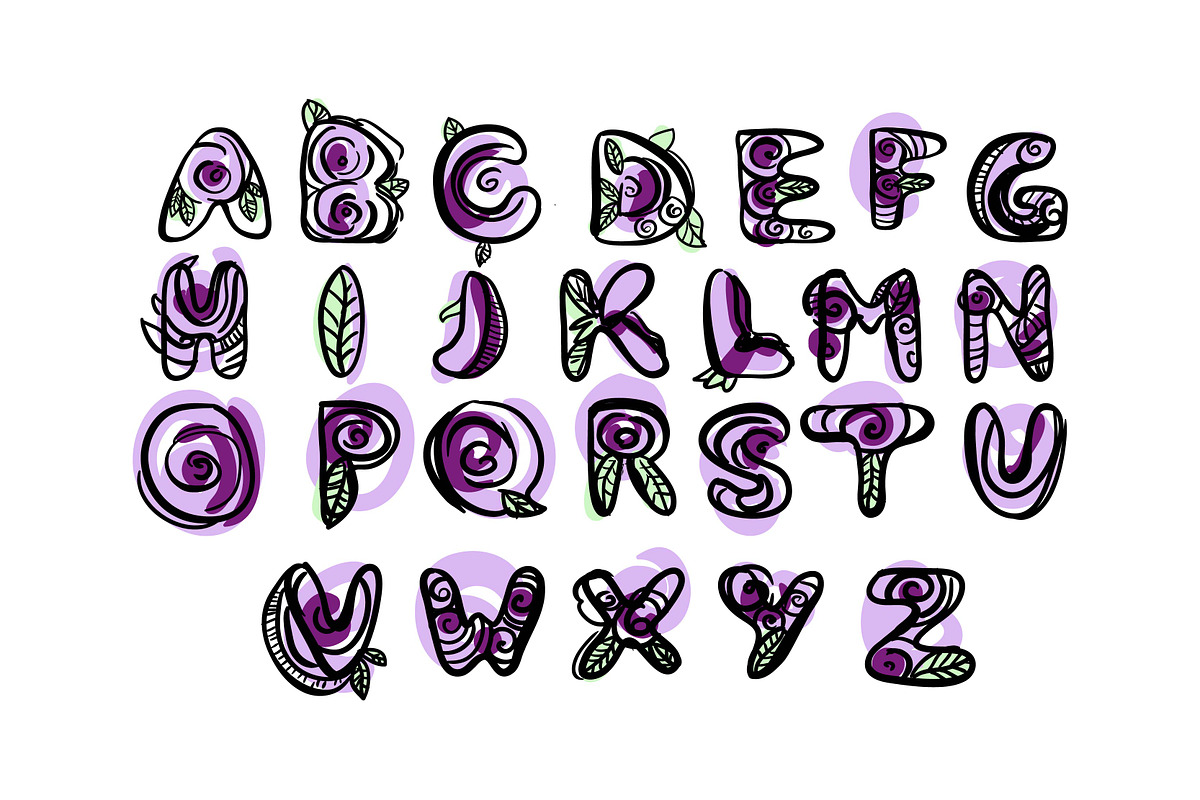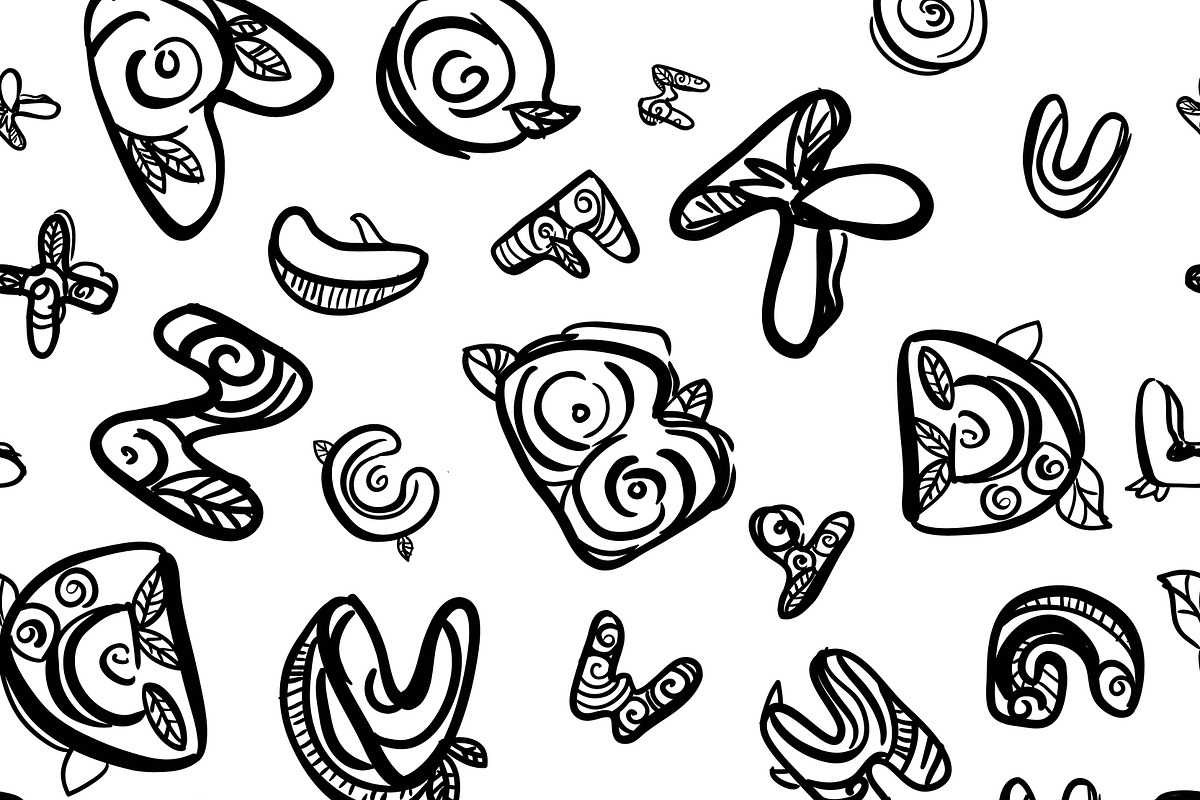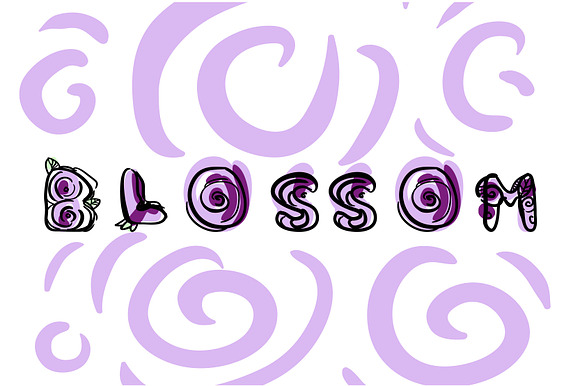
Blossom font
Blossom Font by veri13 is a font selected for branding, posters, packaging, typography.
Why Blossom font is worth a look
Blossom font by Veronika M fits naturally into Branding, posters, packaging, typography.